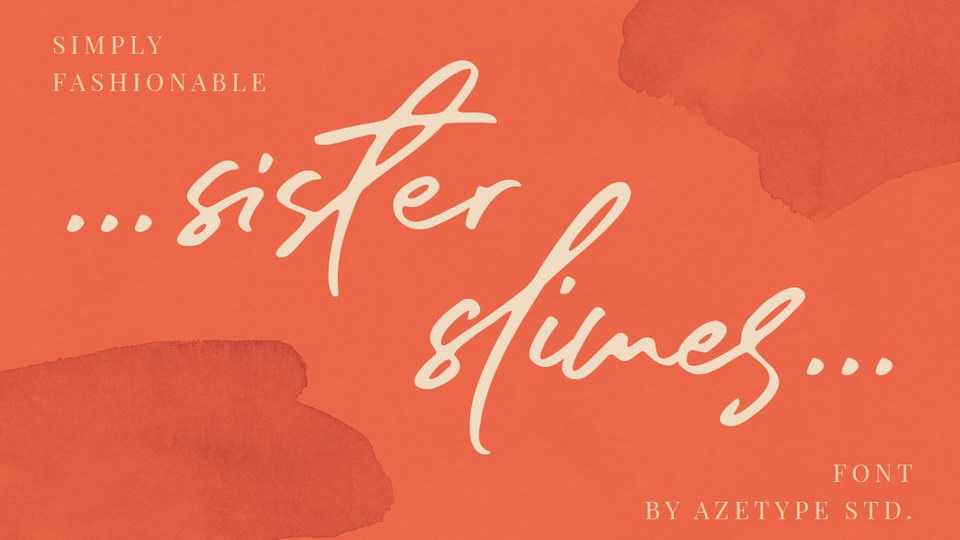
Download Sister Slimes script ,a simply fashionable handwritten font with the original hand scratches. So, Sister Slimes can’t wait to give its touch to all your design projects such as logo, wedding invitation, personal branding and more.
Designer: Azetype Studio